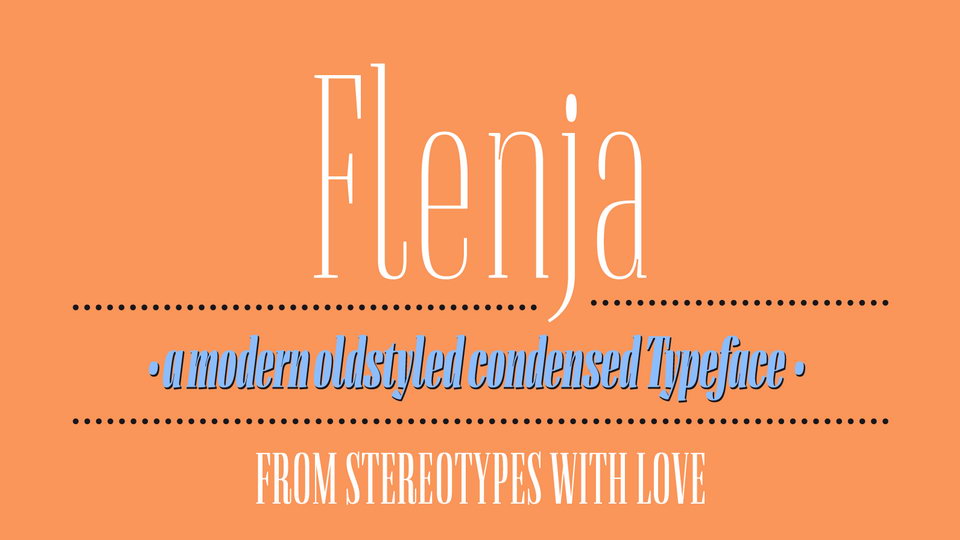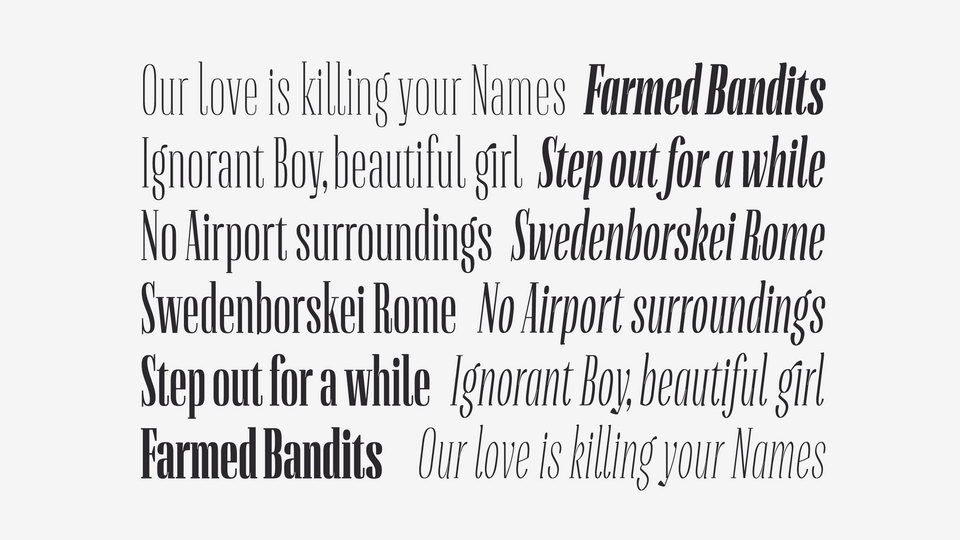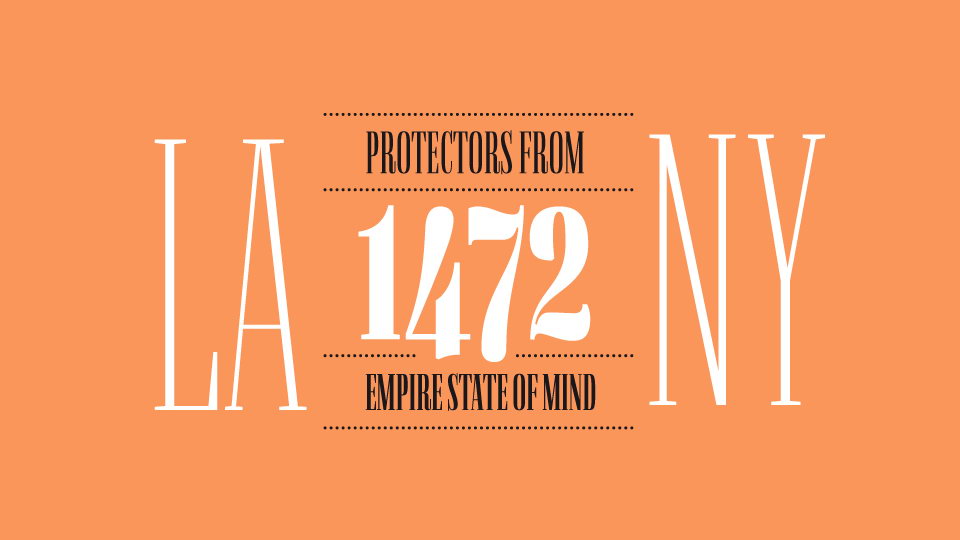
Flenja is an elegant modern old styled condensed typeface. Free version include Regular weight, full version comes with 14 fonts.
Flenja font suits for retro projects, text blocks as well as headlines, fashion, magazines, social media and other designs.